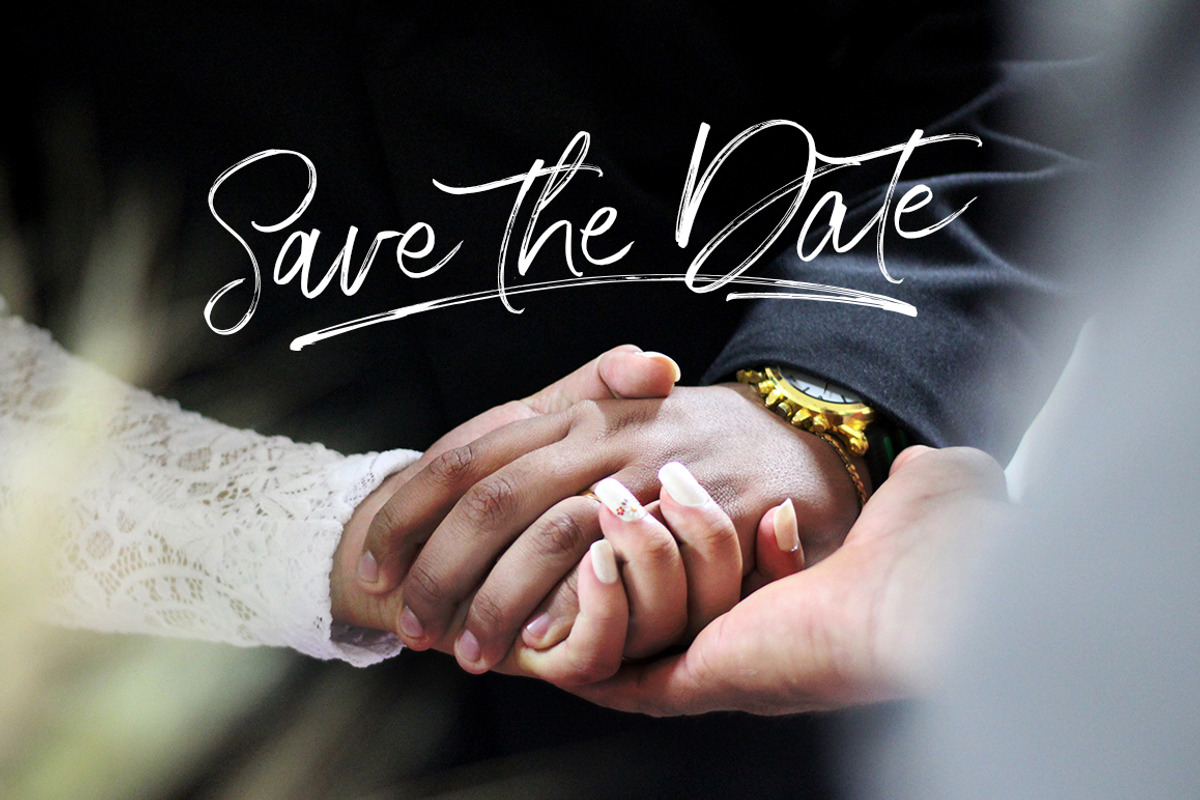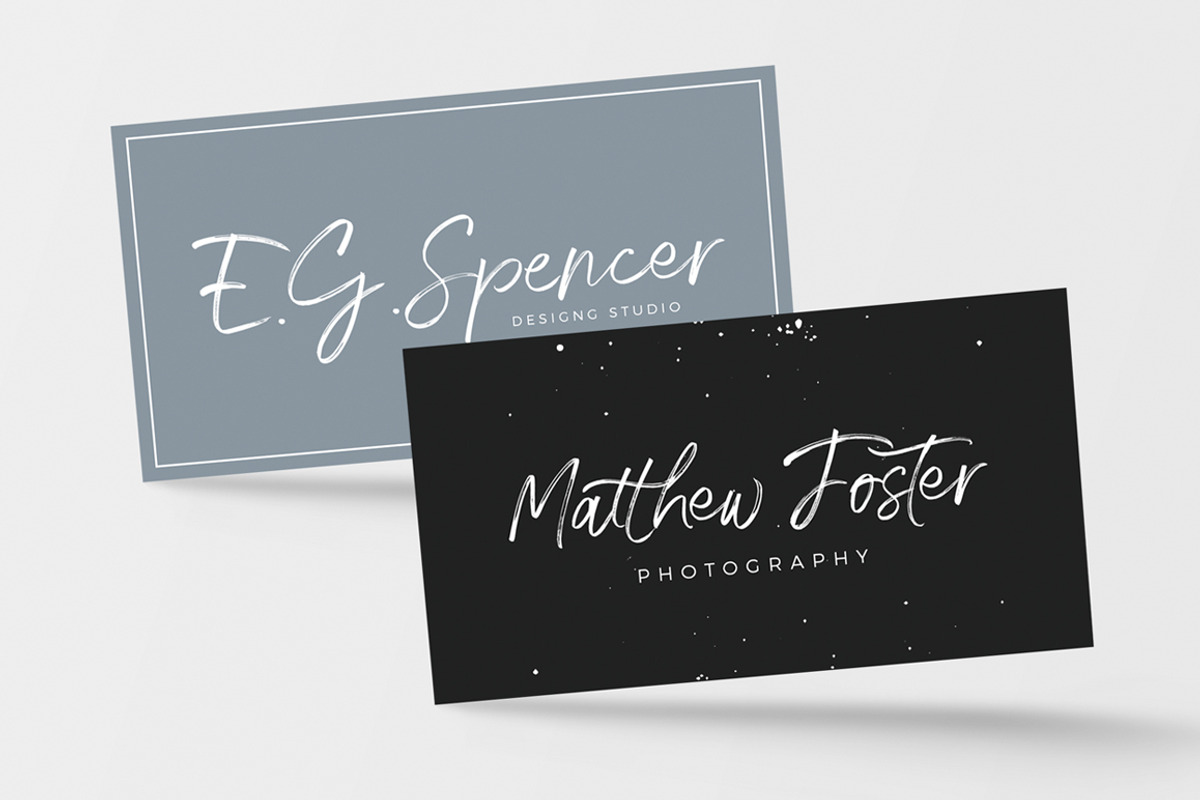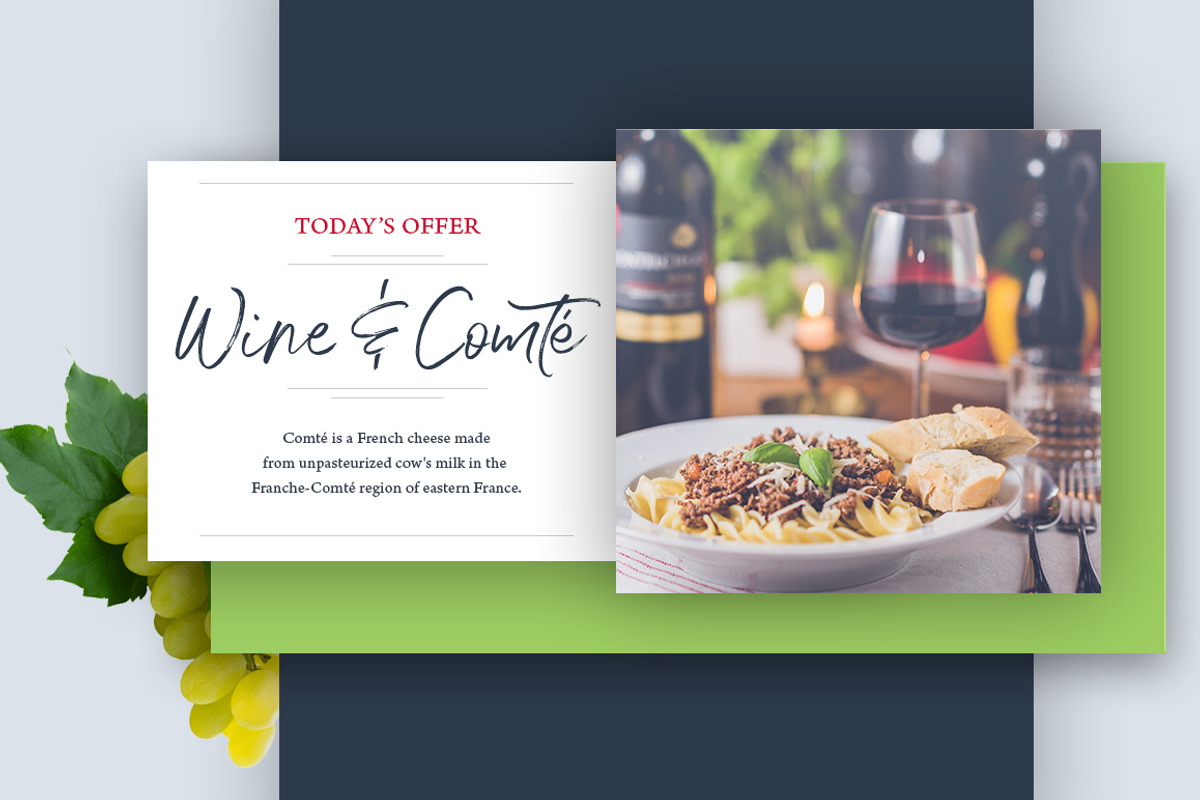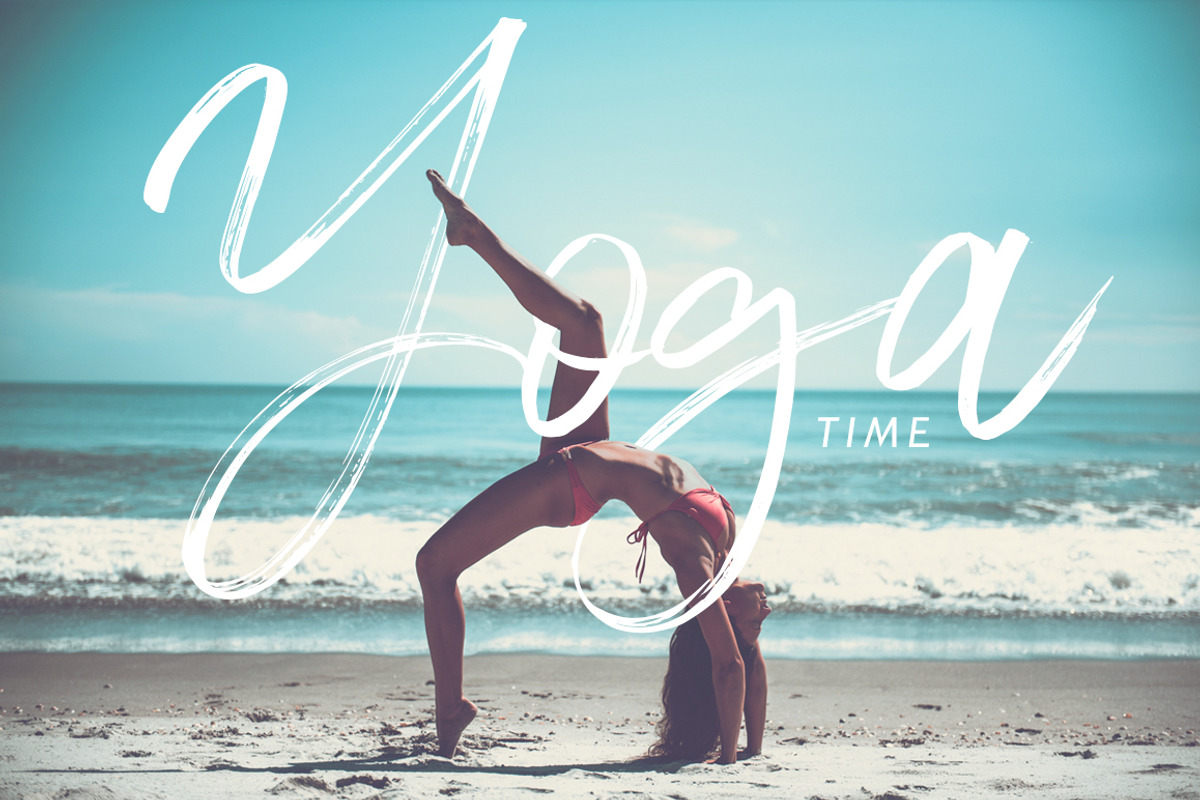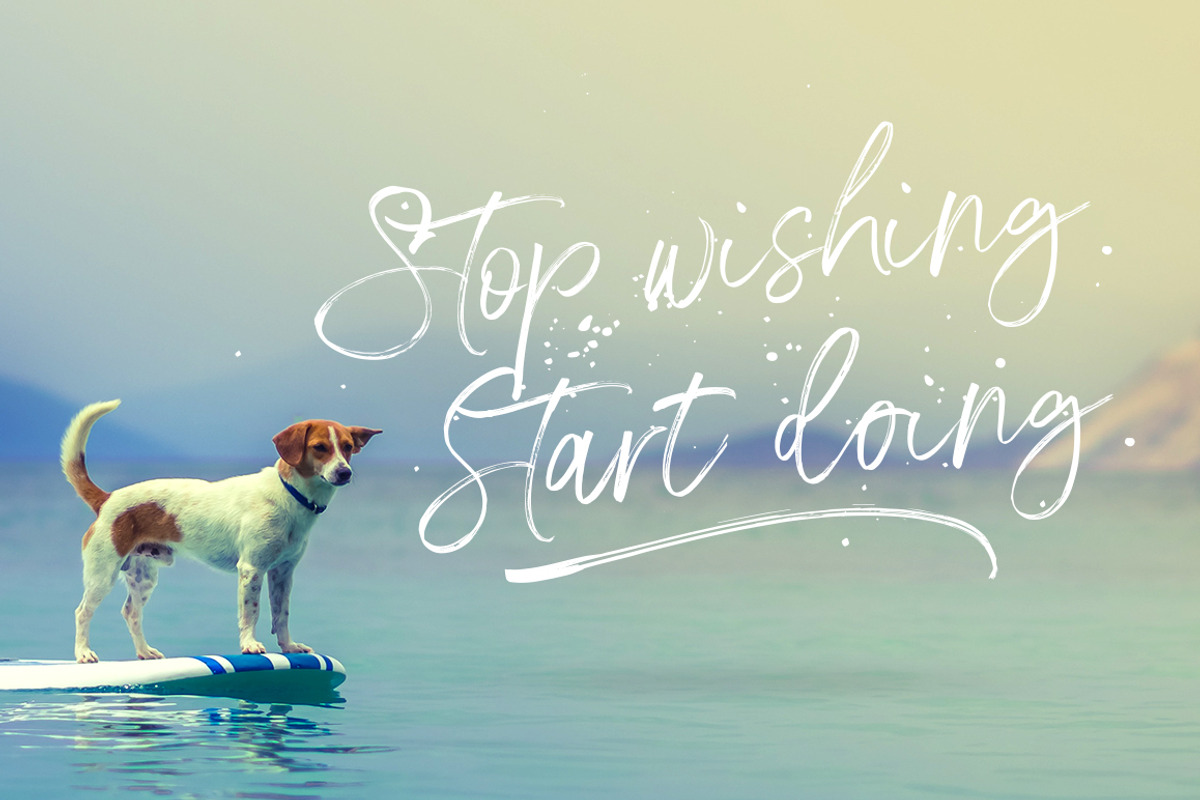
Broadway Script Font
Broadway Script Font by Ivan Rosenberg is a font selected for branding, posters, packaging, typography.
- This brush font comes with a complete set of lowercase and uppercase characters, a large range of punctuation ligatures, numerals and and mu
- Broadway Font is hand brushed font with multilingual support.
- Broadway Font Alt1 The original font, with an alternate set of uppercase and lowercase letters changed for the standard characters.
- Broadway Font Alt2 The original font, with an alternate set of uppercase and lowercase letters changed for the standard characters.
- Broadway Font Alt3 The original font, with an alternate set of uppercase and lowercase letters changed for the standard characters.
Why Broadway Script Font is worth a look
Broadway Script Font by Ivan Rosenberg fits naturally into Branding, posters, packaging, typography.